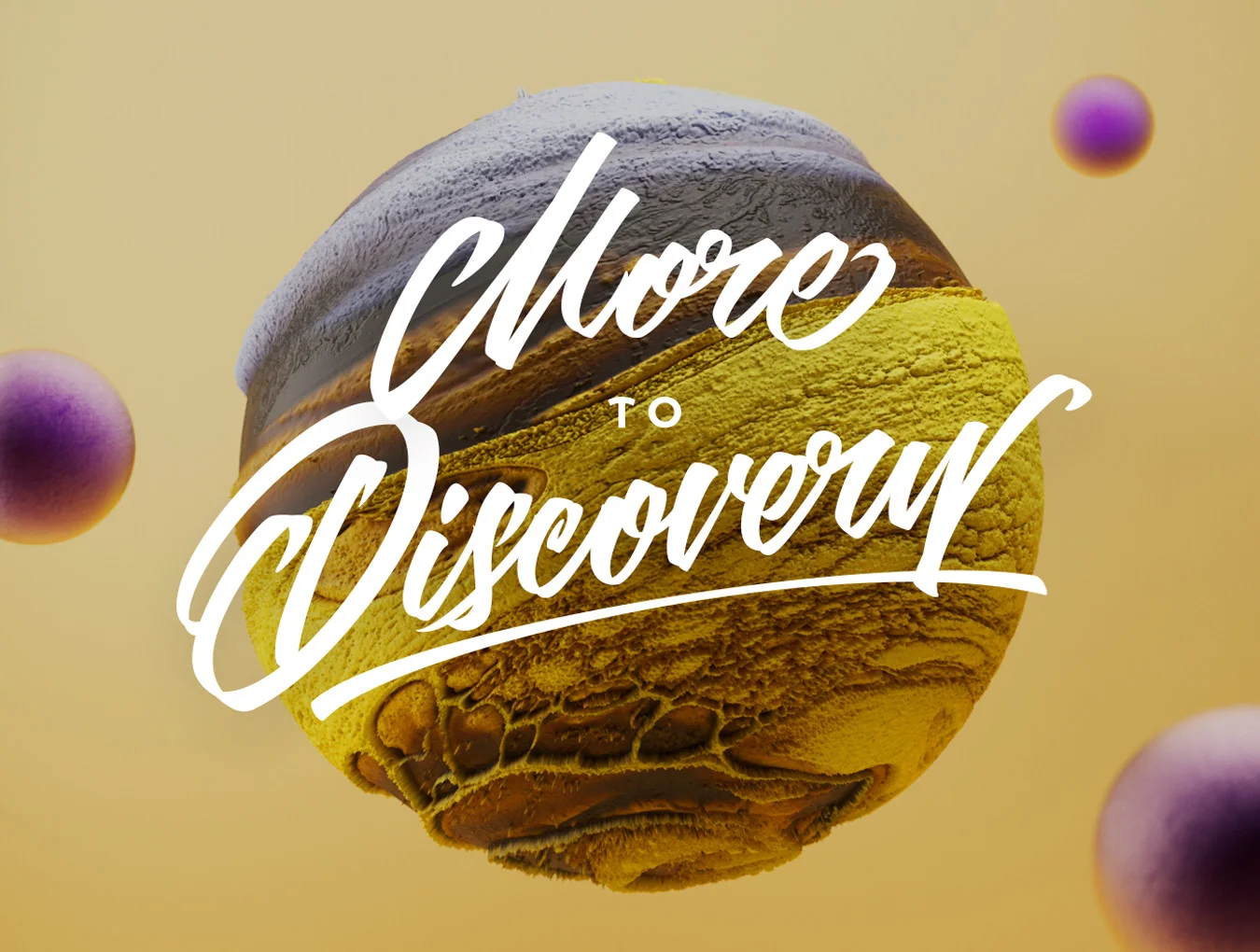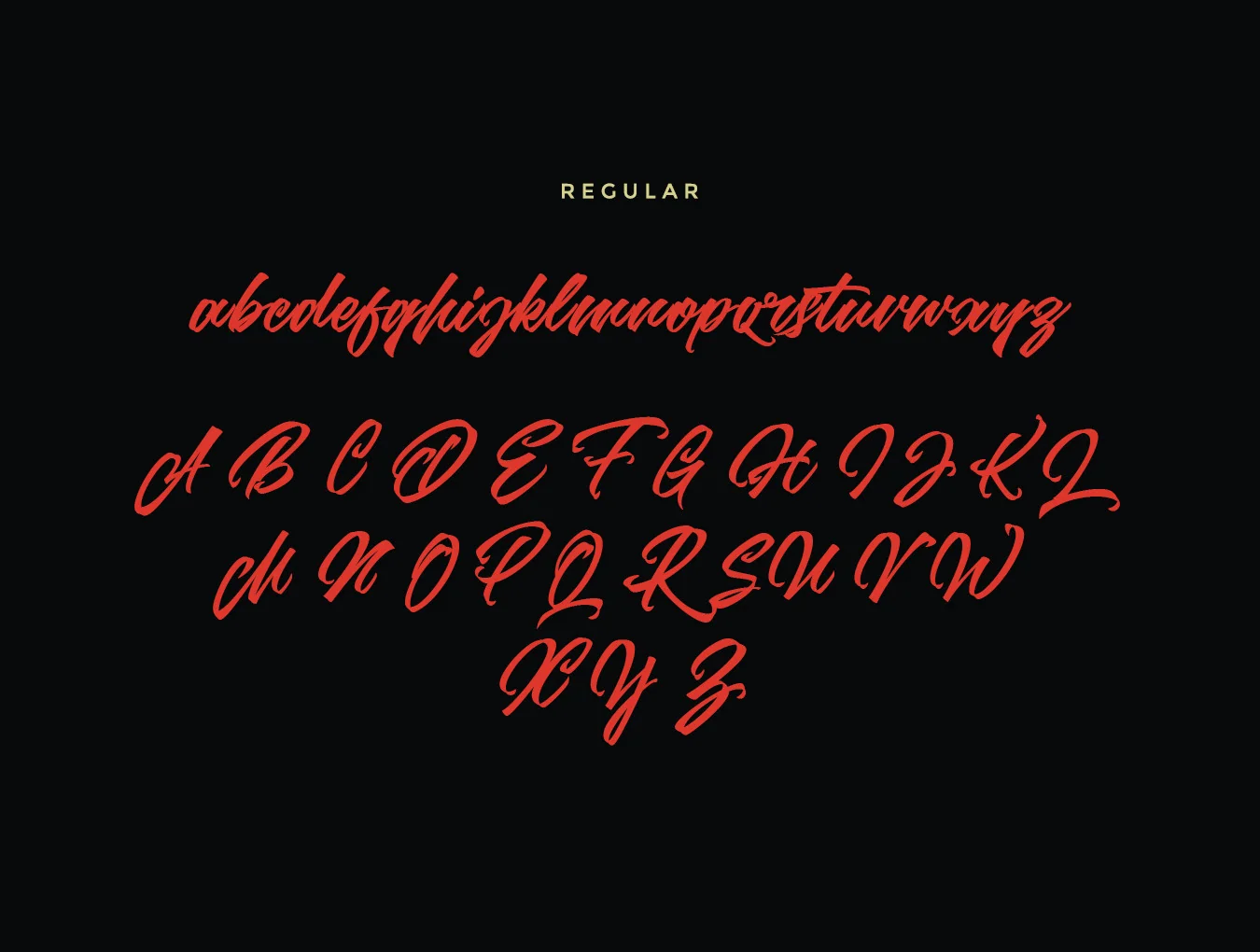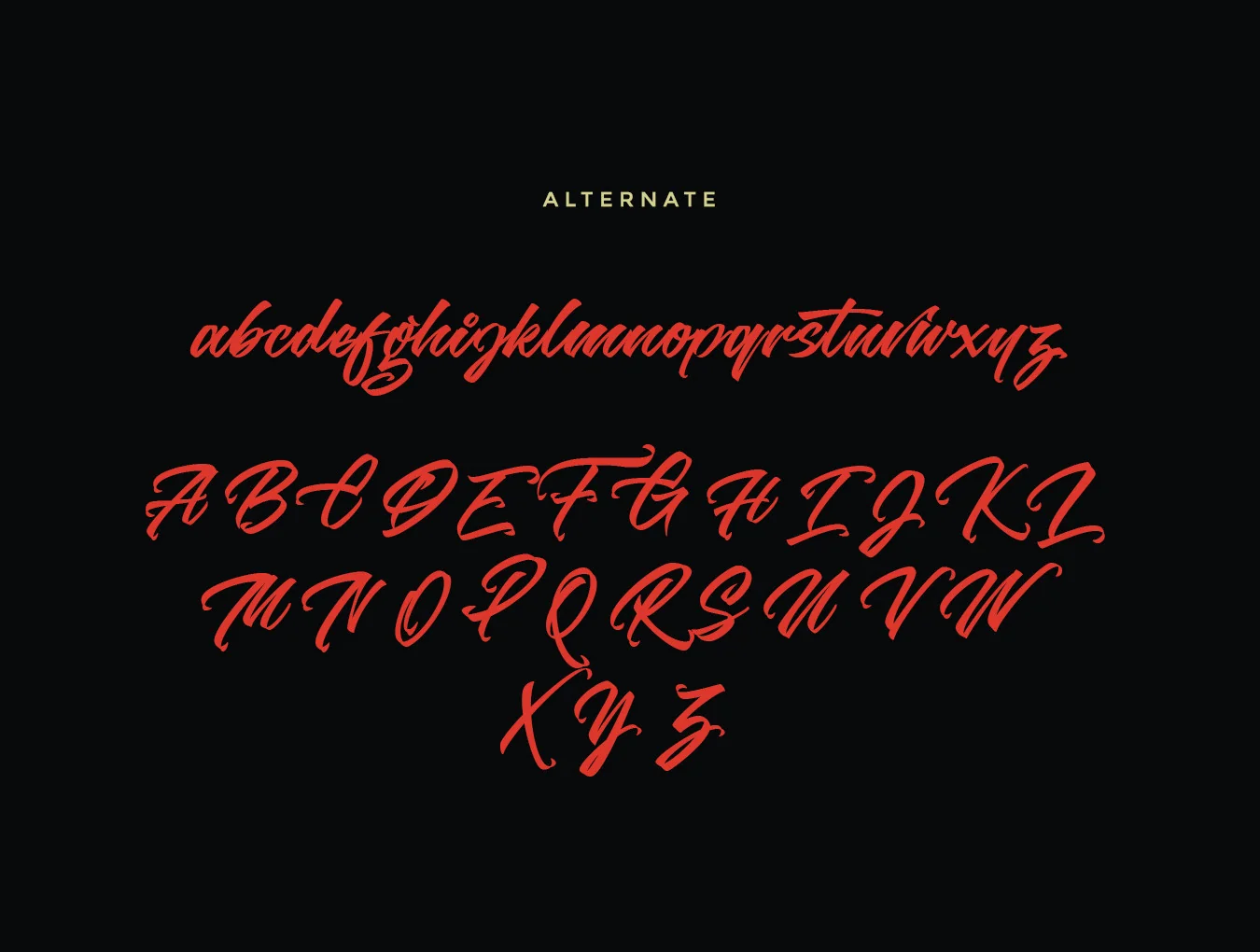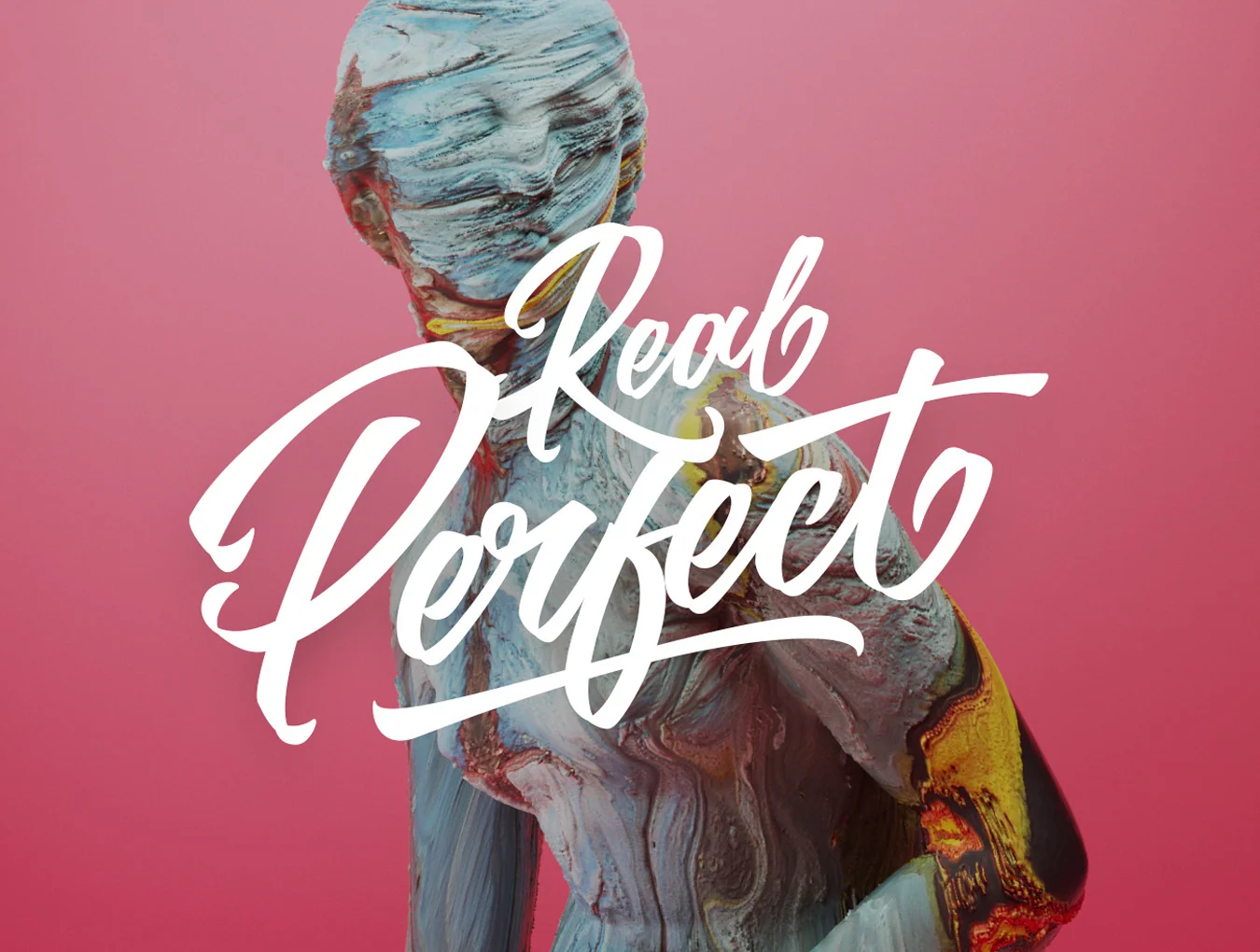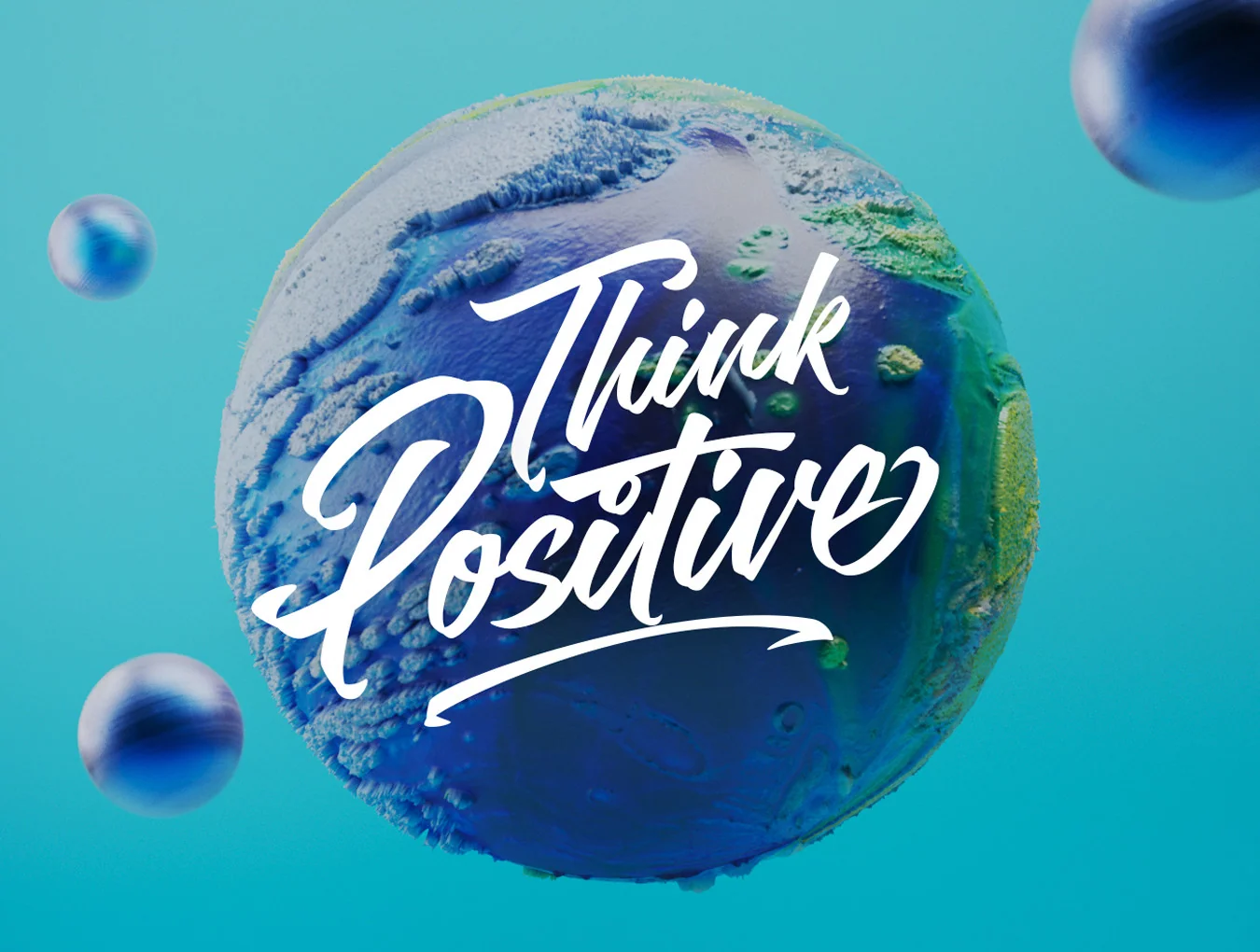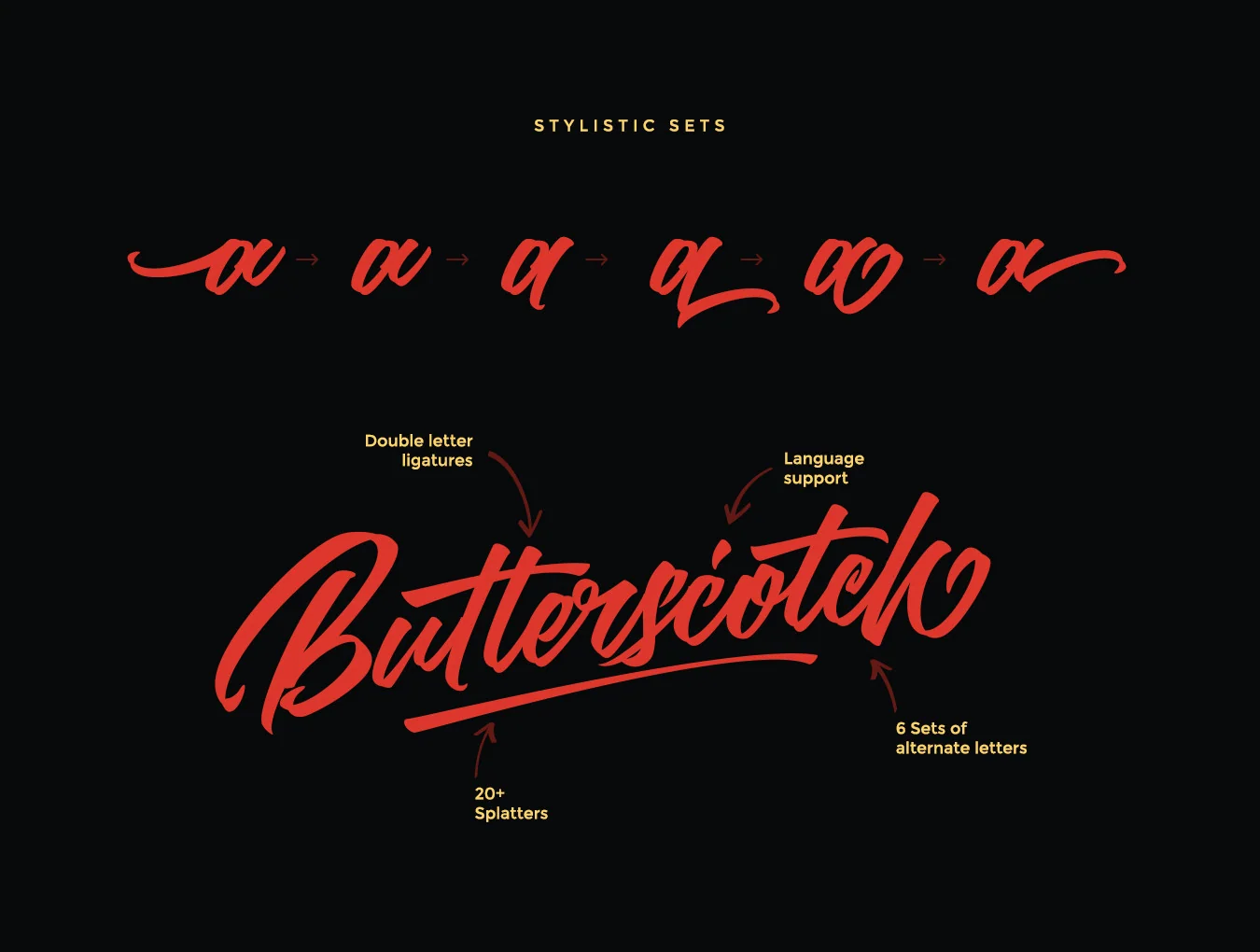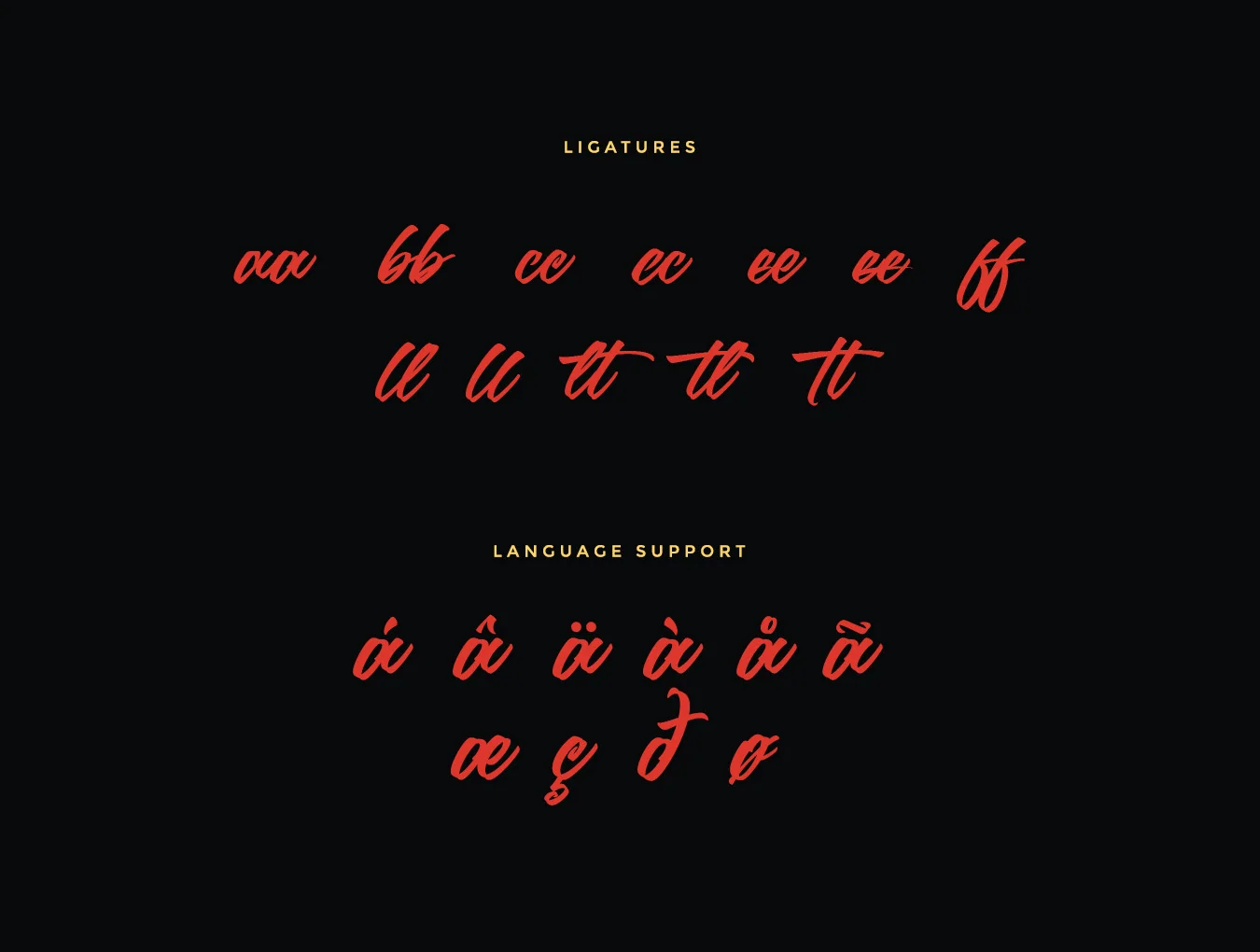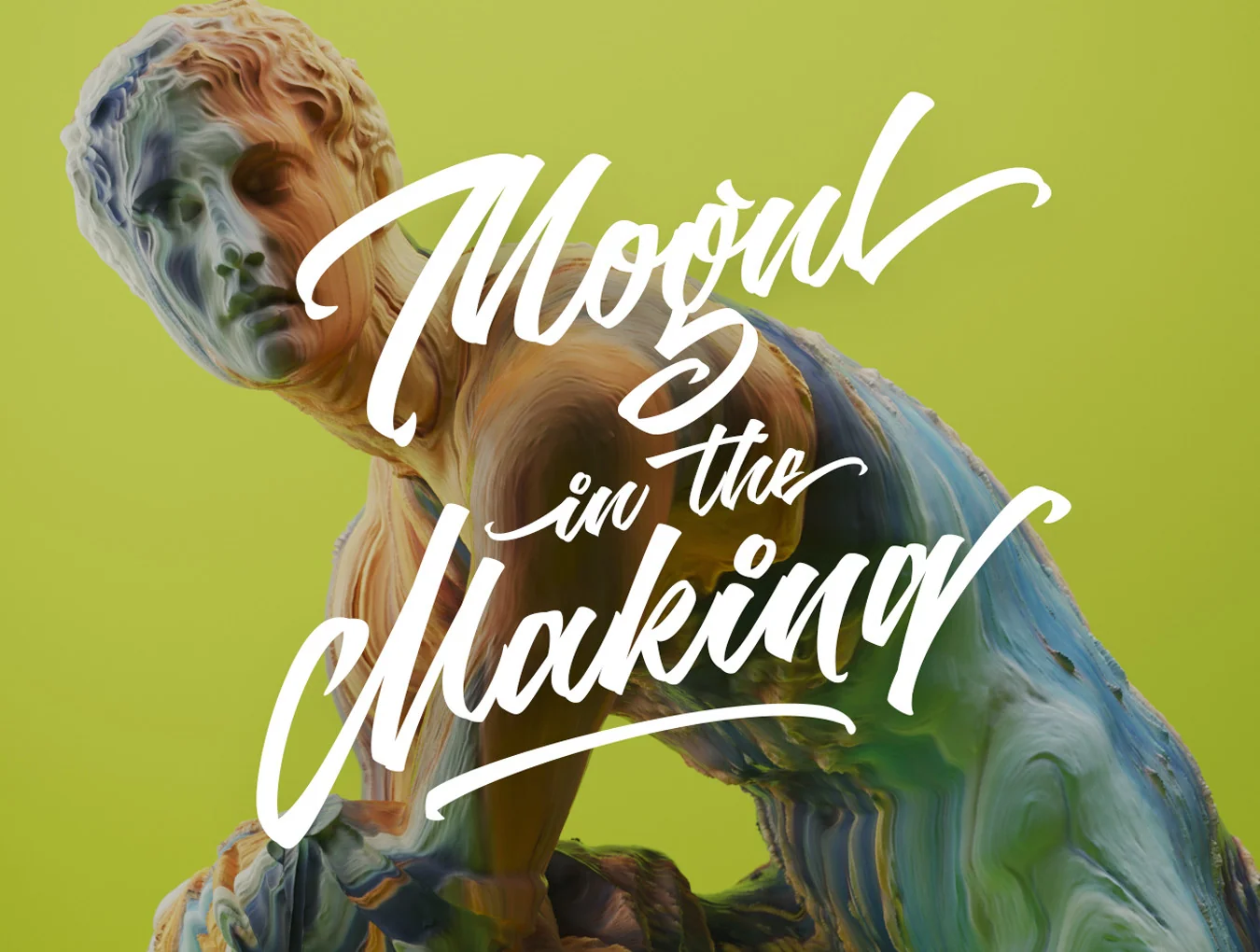
Goliath Script
Superb script-style font for logo creation
Goliath Script
Capital and small letterforms
Ligatures and alternate characters
Goliath is a standout font bundle built for bold branding. Pair the Regular style with alternate characters to give every word a custom look, then finish it with the Splashes font for a tagline-ready logo design.